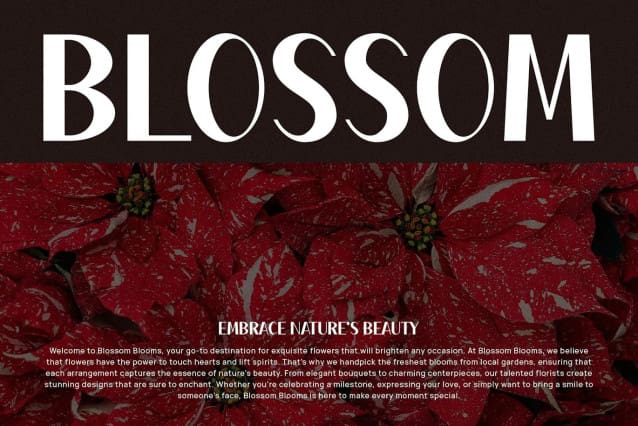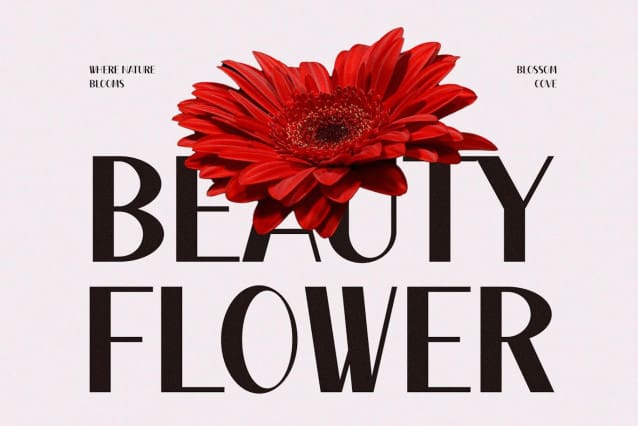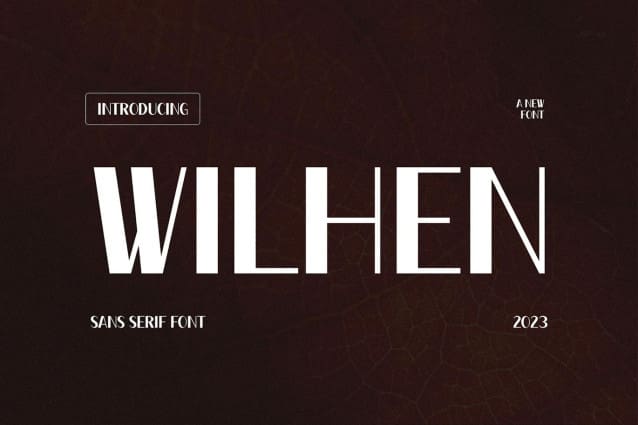
Wilhen Font
Wilhen Font, a modern sans serif font with an elegant style, perfect for brands, logos, invitations, magazines, product packaging and more.